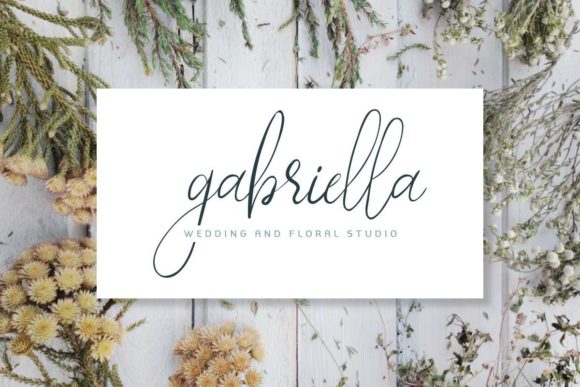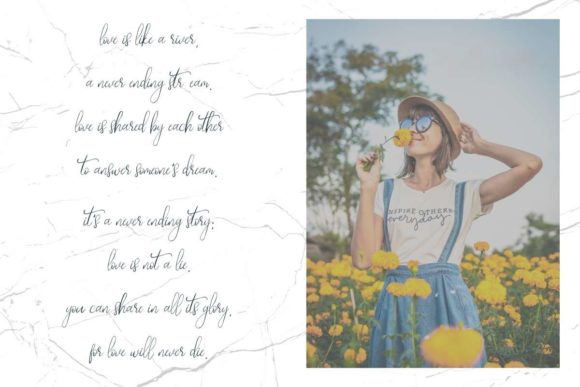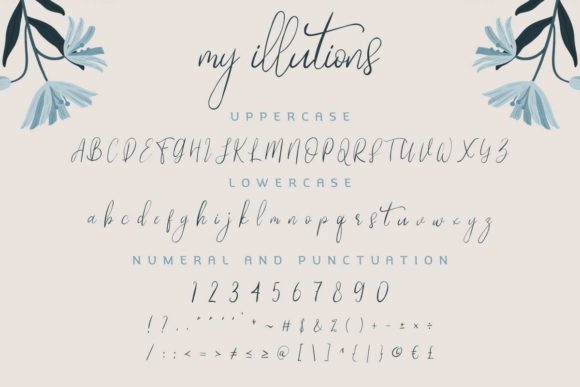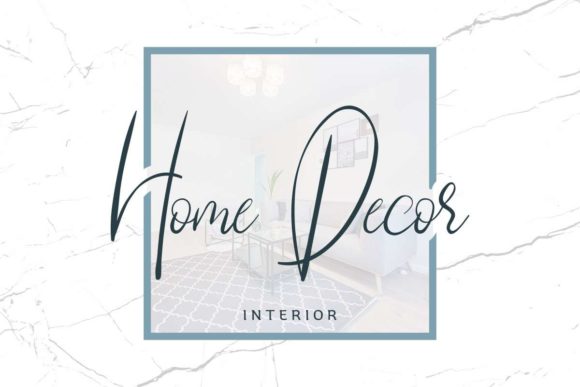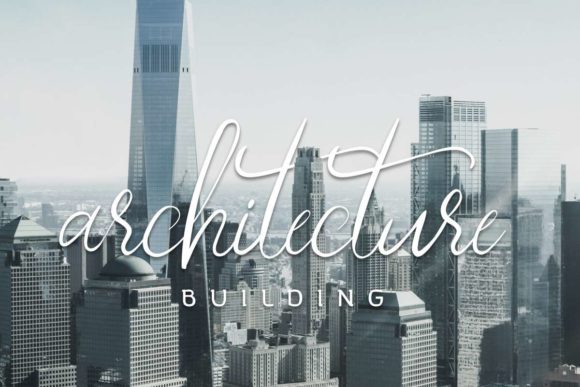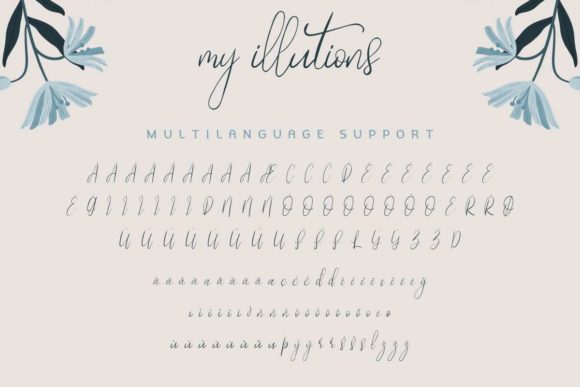
Introduction to My Illusions Font
As a designer, there’s nothing quite like the thrill of bringing a creative project to life. But sometimes, it’s the smallest details that make all the difference. I still remember the moment I stumbled upon My Illusions Font – a gorgeously romantic and playful script that instantly stole my heart. Its rich swashes and elegant lines had me hooked from the very start.
What I love most about My Illusions Font is its ability to elevate any design with its high-quality, transparent background. Whether you’re working on a personal project or a commercial one, this font is sure to be a valuable addition to your design resource. And the best part? It’s available for free download, making it accessible to designers of all levels.
With its versatility and beauty, My Illusions Font is a must-have for any creative project. Whether you’re designing a wedding invitation, a logo, or a website, this font is sure to bring a touch of sophistication and whimsy to your work.
Key Features of My Illusions Font
- High-quality, vector-based font with a transparent background, ideal for creative projects that require a clean and modern design aesthetic.
- Unique, hand-drawn design with a subtle texture, adding a touch of personality to any creative project.
- Perfect for designers, artists, and writers looking for a versatile font to use in their creative projects, from logos and branding to book covers and magazine layouts.
Honest Review: My Illutions Font
I recently stumbled upon the My Illutions Font and was immediately drawn to its unique style. The font is perfect for any creative project that requires a touch of elegance and sophistication. One of the standout features of this font is its transparent background, making it easy to use on any design surface.
Overall, I was impressed with the high quality of the font. The characters are well-designed and the font is highly legible. I was able to use it for a personal project and was pleased with the results.
- Unique and elegant style
- High quality and legible characters
- Not as versatile as some other fonts
- Some users may find the font too ornate
Overall, I would highly recommend the My Illutions Font for any design project that requires a touch of sophistication. With its unique style and high quality, it’s a great addition to any designer’s toolkit. Plus, it’s available as a free download, making it an even more valuable resource.
Tips for Getting the Most Out of My Illusions Font
My Illusions Font is commonly used in graphic design, digital art, and creative writing projects. It’s a great resource for anyone looking to add a unique and creative touch to their work.